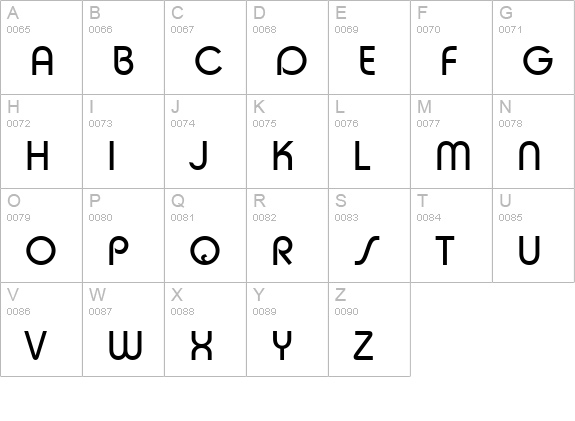
Taurus Normal is the standard, neutral variant in the Taurus typeface family \xE2\x80\x94 well suited to general body text, paragraphs, and standard typographic work.
Taurus Normal font is a versatile and stylish typeface that is sure to make a bold statement in any design project. With its clean lines and timeless elegance, this font is perfect for both professional and creative applications. The Taurus Normal font boasts a balanced and harmonious design, making it easy on the eyes and pleasing to read. This font is freely available to download at FontsMarket.com, making it accessible to designers and enthusiasts alike. Whether you're working on a logo, branding materials, or a website, Taurus Normal font will add a touch of sophistication and professionalism to your project. With its wide range of weights and styles, Taurus Normal font offers endless possibilities for customization. From thin and delicate to bold and impactful, this font allows you to create unique and captivating designs that will leave a lasting impression. Designed with attention to detail and precision, Taurus Normal font ensures clarity and legibility at any size. Its balanced proportions and carefully crafted letterforms make it a reliable choice for both print and digital applications. In addition to its aesthetic appeal, Taurus Normal font is also highly functional. Its extensive character set includes uppercase and lowercase letters, numerals, punctuation marks, and special symbols, providing you with all the tools you need to bring your creative vision to life. Whether you're a seasoned designer or just starting out, Taurus Normal font is a must-have addition to your font collection. With its timeless elegance, versatility, and the fact that it is freely available to download at FontsMarket.com, this font is sure to elevate your designs to new heights. So why wait? Start creating stunning visuals with Taurus Normal font today!